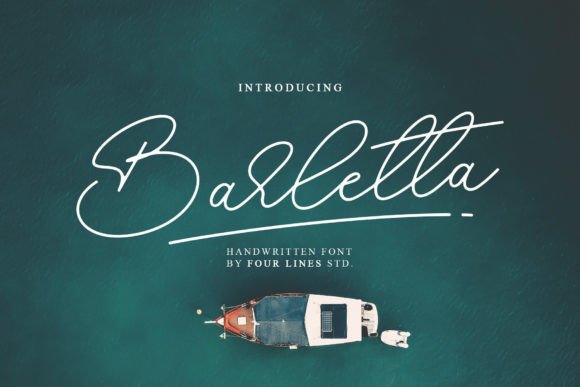
**Unleash the Power of Expression with Barletta: The Script Font for Every Creative Occasion**
Immerse yourself in the captivating world of Barletta, an enchanting script font that embodies the essence of modern elegance. Crafted with meticulous attention to detail, this font's graceful strokes and flowing curves invite you to express your creativity with unparalleled flair.
**Effortless Readability for Seamless Communication**
Barletta's meticulously designed characters ensure effortless readability, captivating your audience from the very first glance. Its clean lines and carefully balanced spacing create a harmonious visual experience, making your words dance off the page with effortless grace. Whether crafting a heartfelt letter, composing an eye-catching invitation, or designing a stunning social media post, Barletta empowers you to convey your message with clarity and impact.
**Versatile Charm for Endless Creative Possibilities**
From the intimate warmth of greeting cards to the grand eloquence of wedding invitations, Barletta's versatility knows no bounds. Its delicate charm lends a touch of sophistication to social media posts, while its bold personality commands attention in headers and branding materials. Unleash your imagination and discover the myriad ways Barletta can elevate your creative projects to new heights.
**Perfect for Modern Resumes: Stand Out from the Crowd**
In the competitive world of job applications, Barletta emerges as the perfect companion for creating a modern resume that demands attention. Its crisp lines and legible characters ensure that your resume stands out from the crowd, showcasing your skills and experience with professional finesse. Let Barletta be your secret weapon in crafting a resume that reflects your unique personal brand and lands you the job of your dreams.